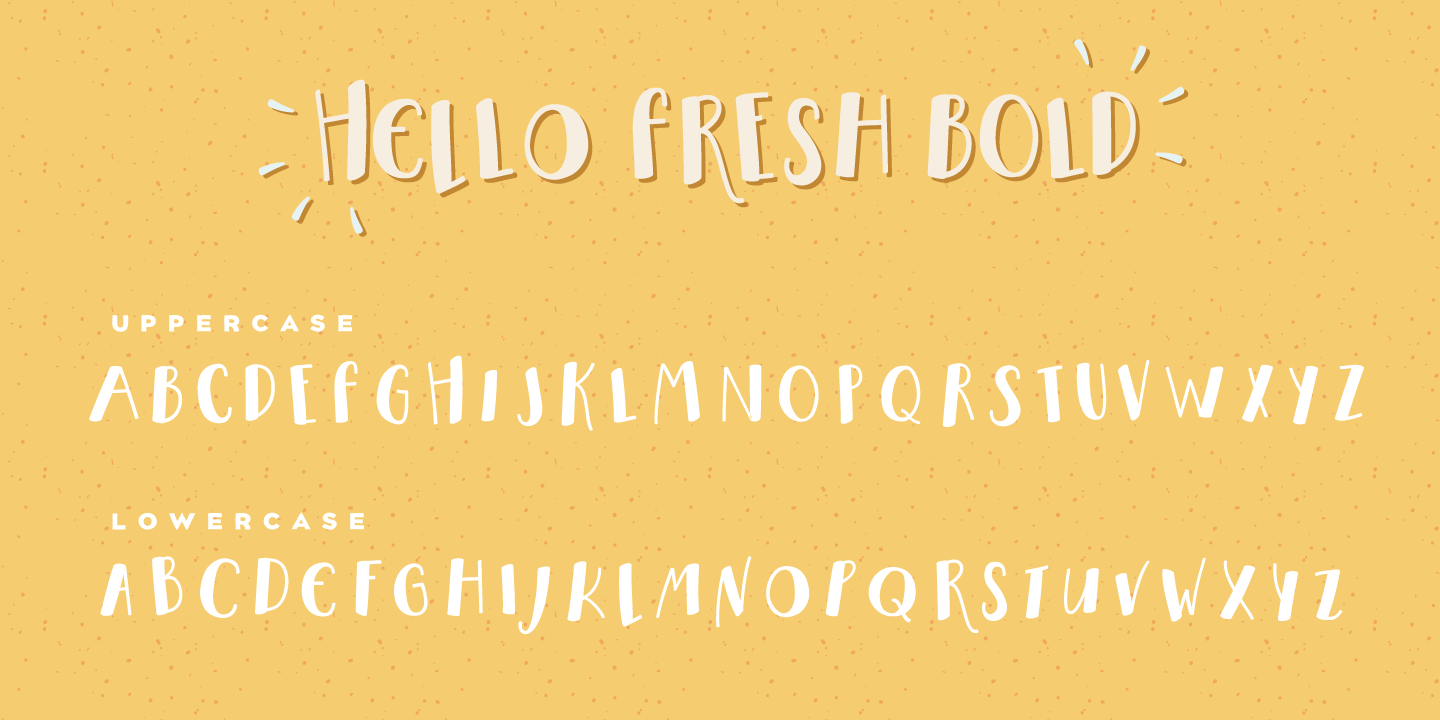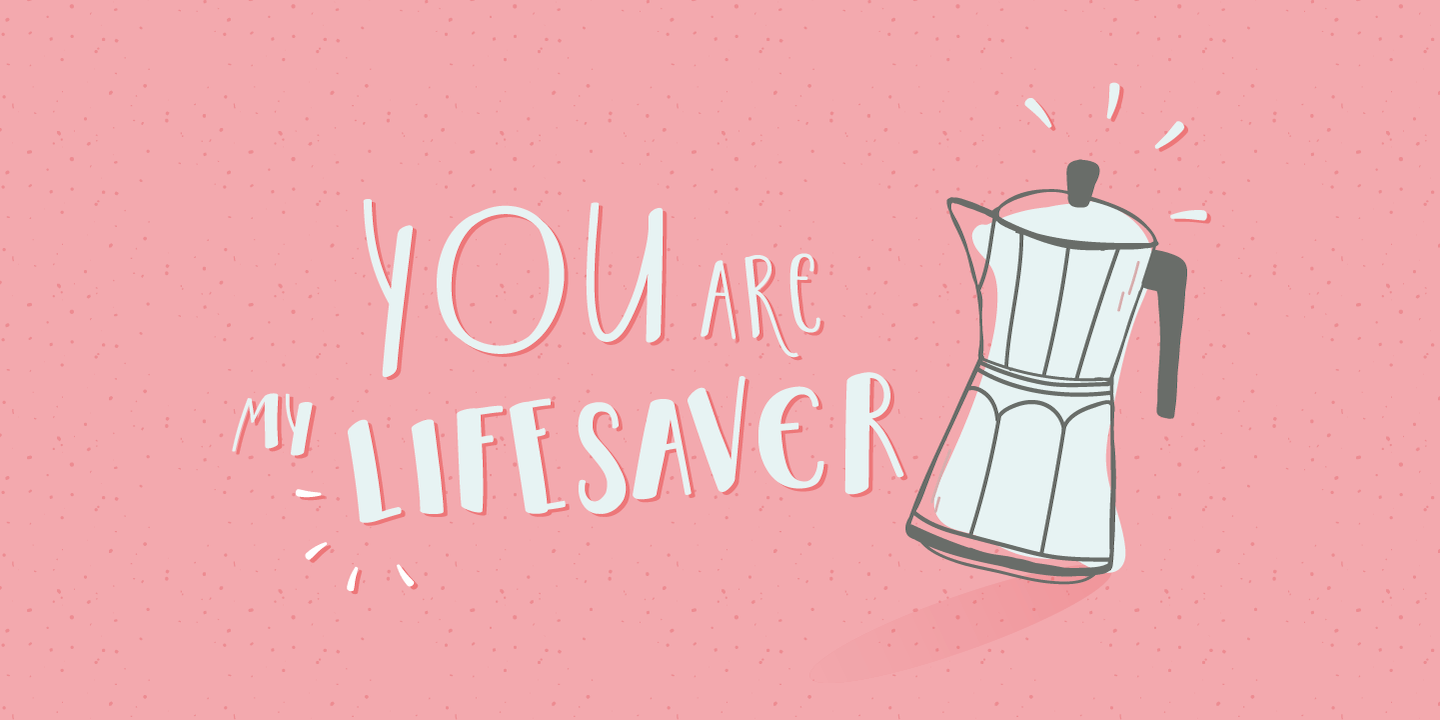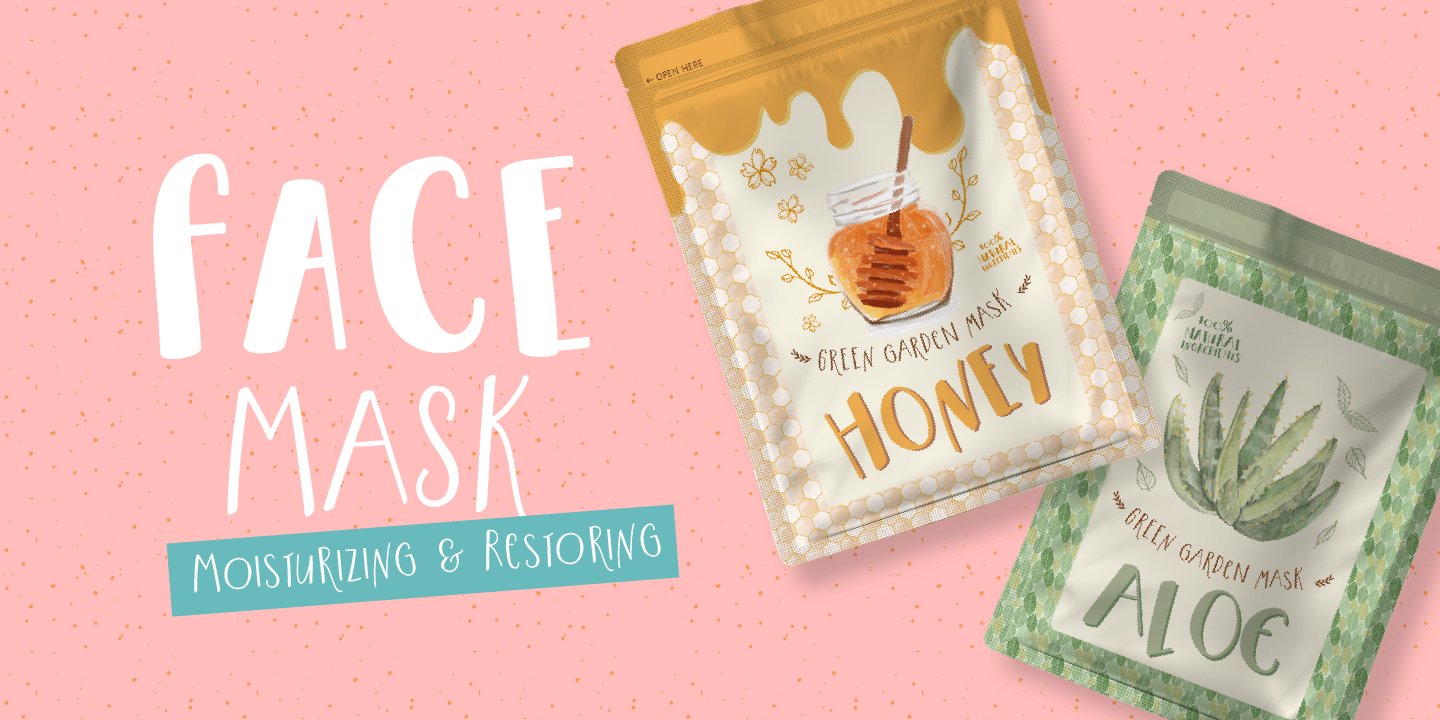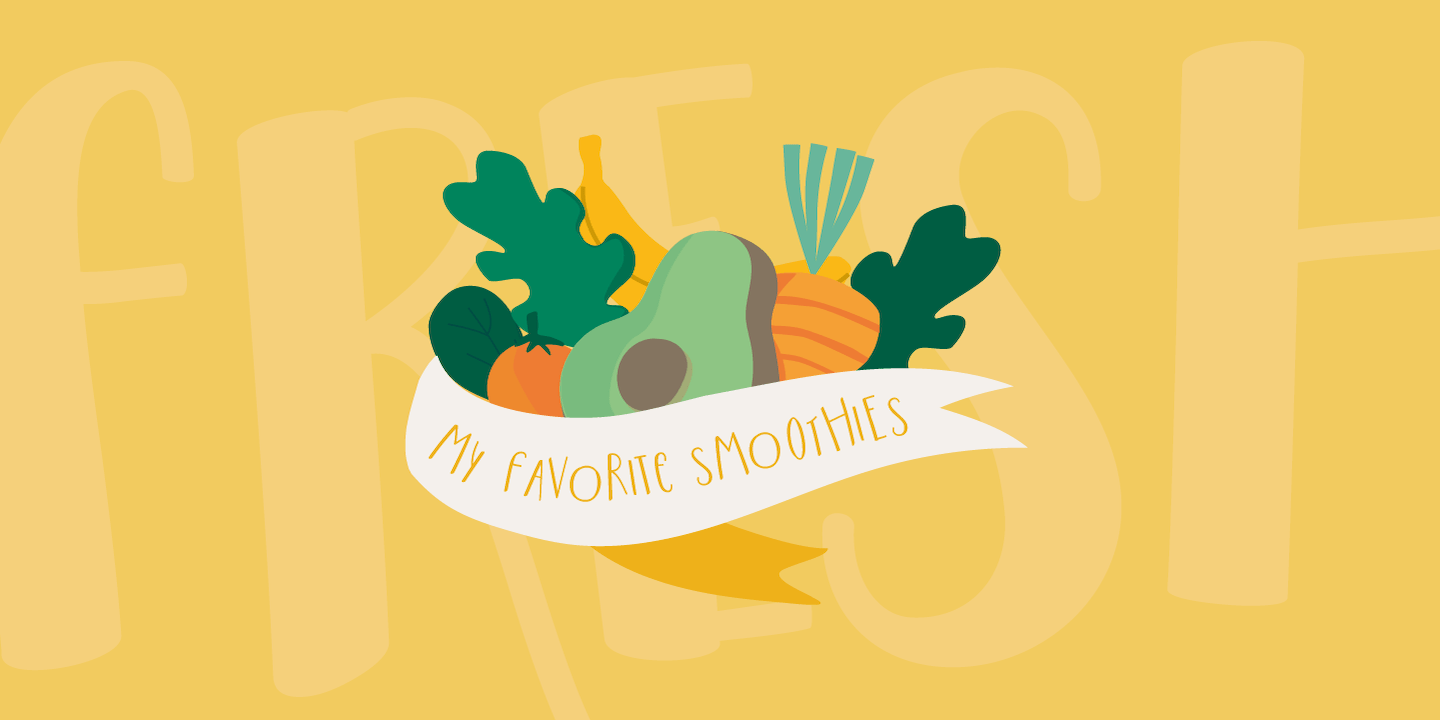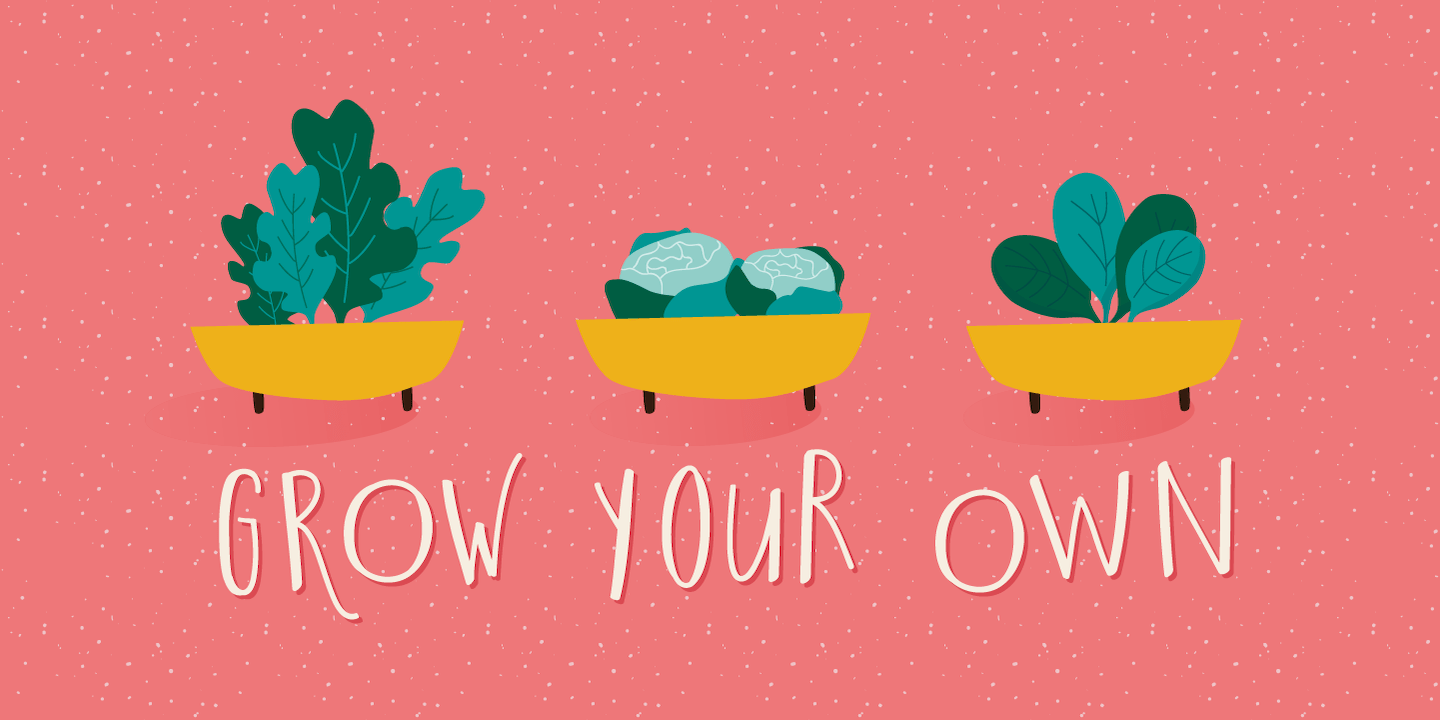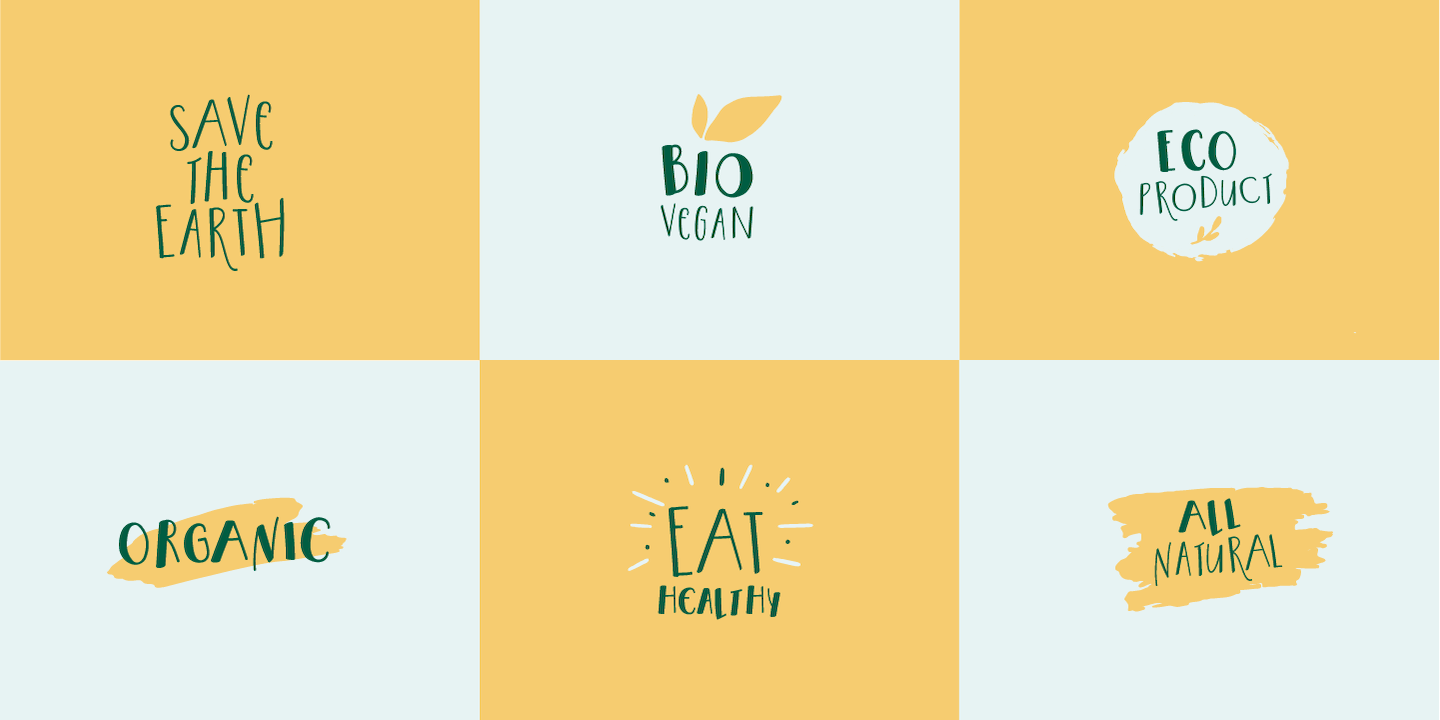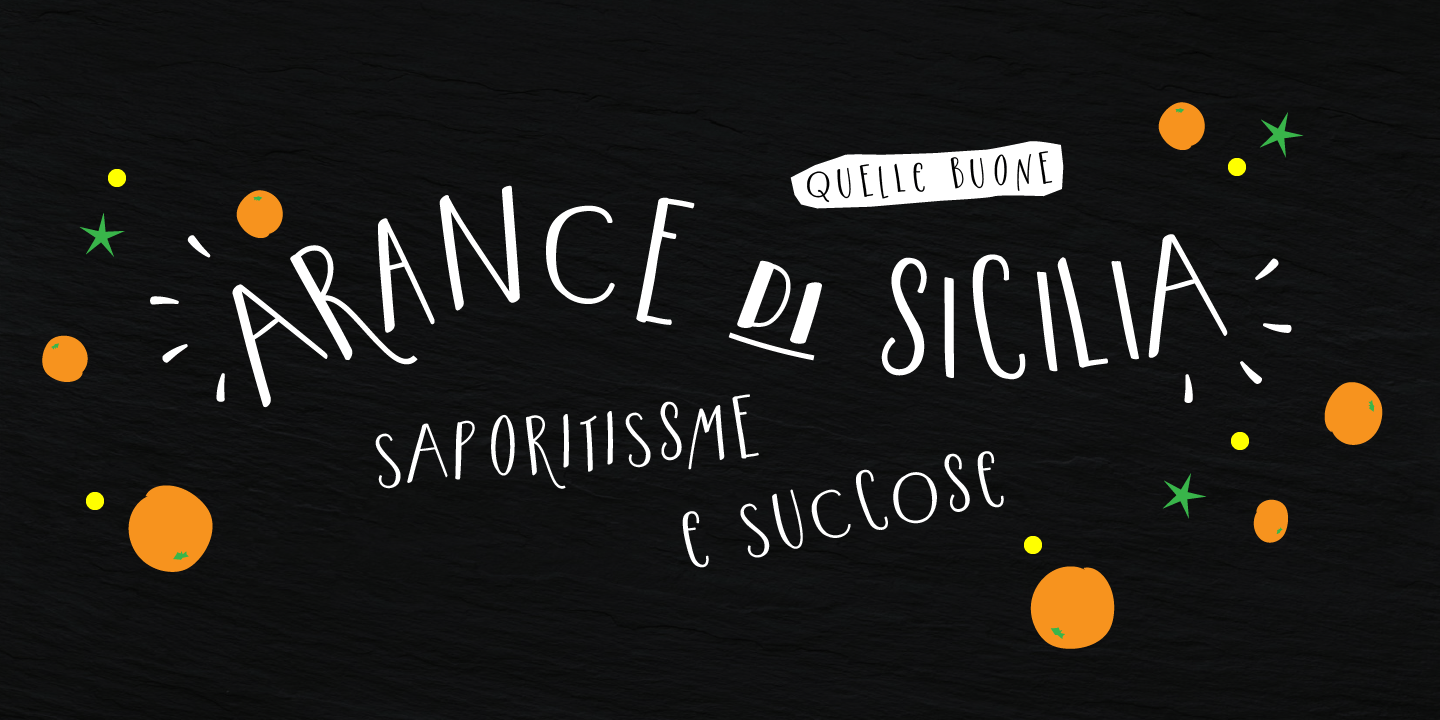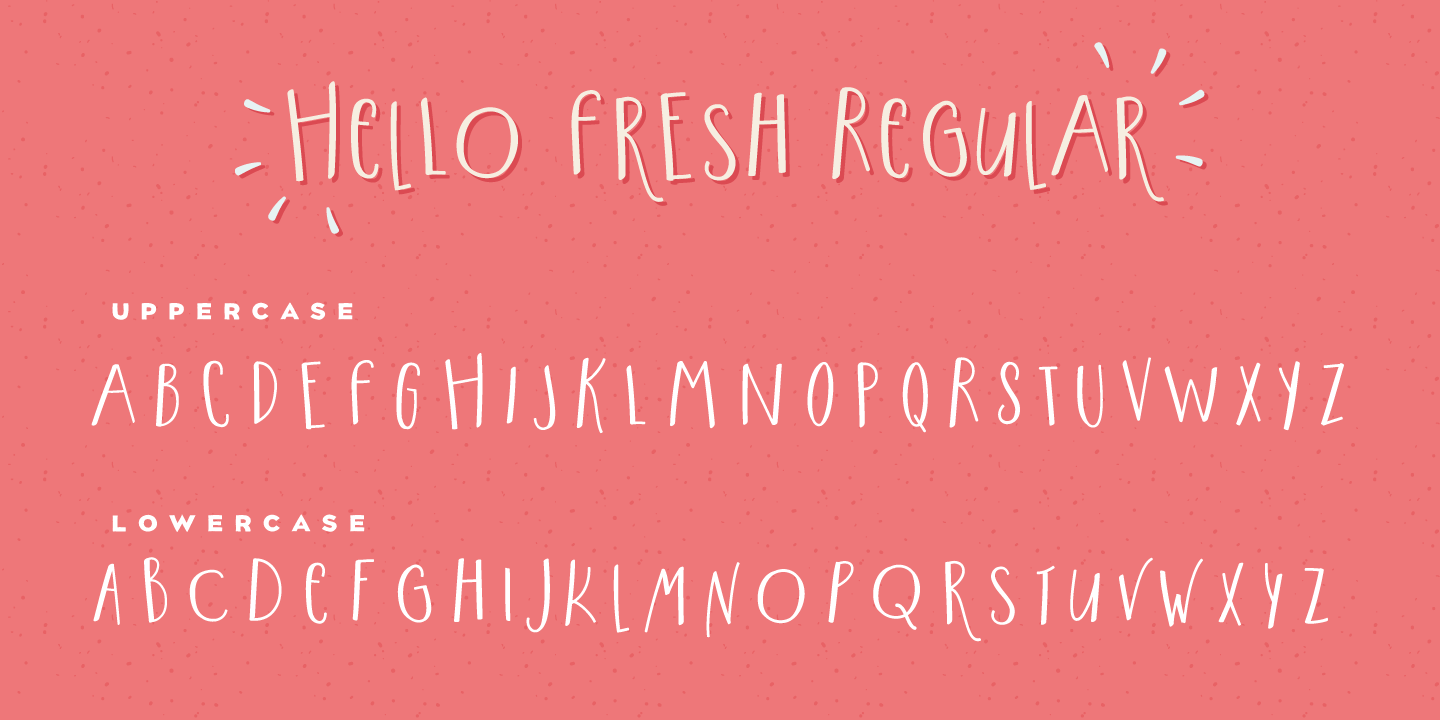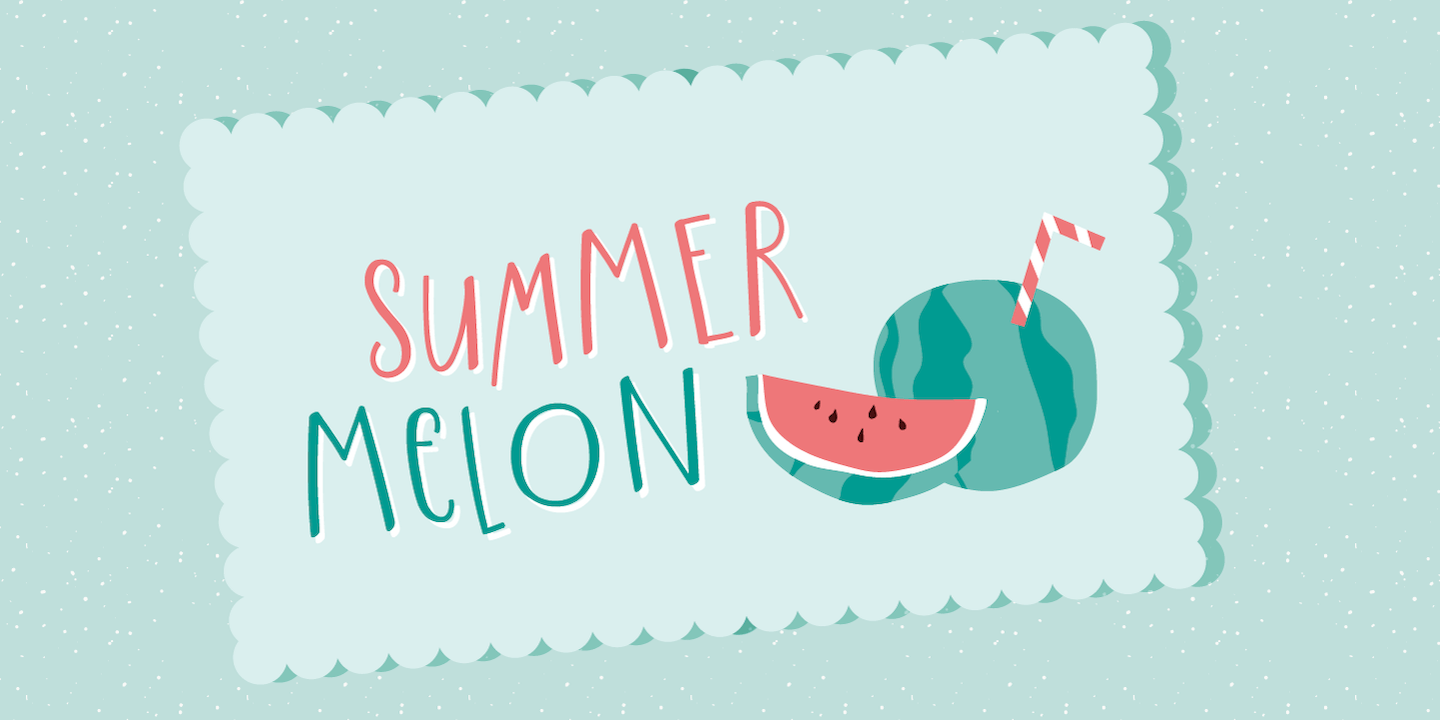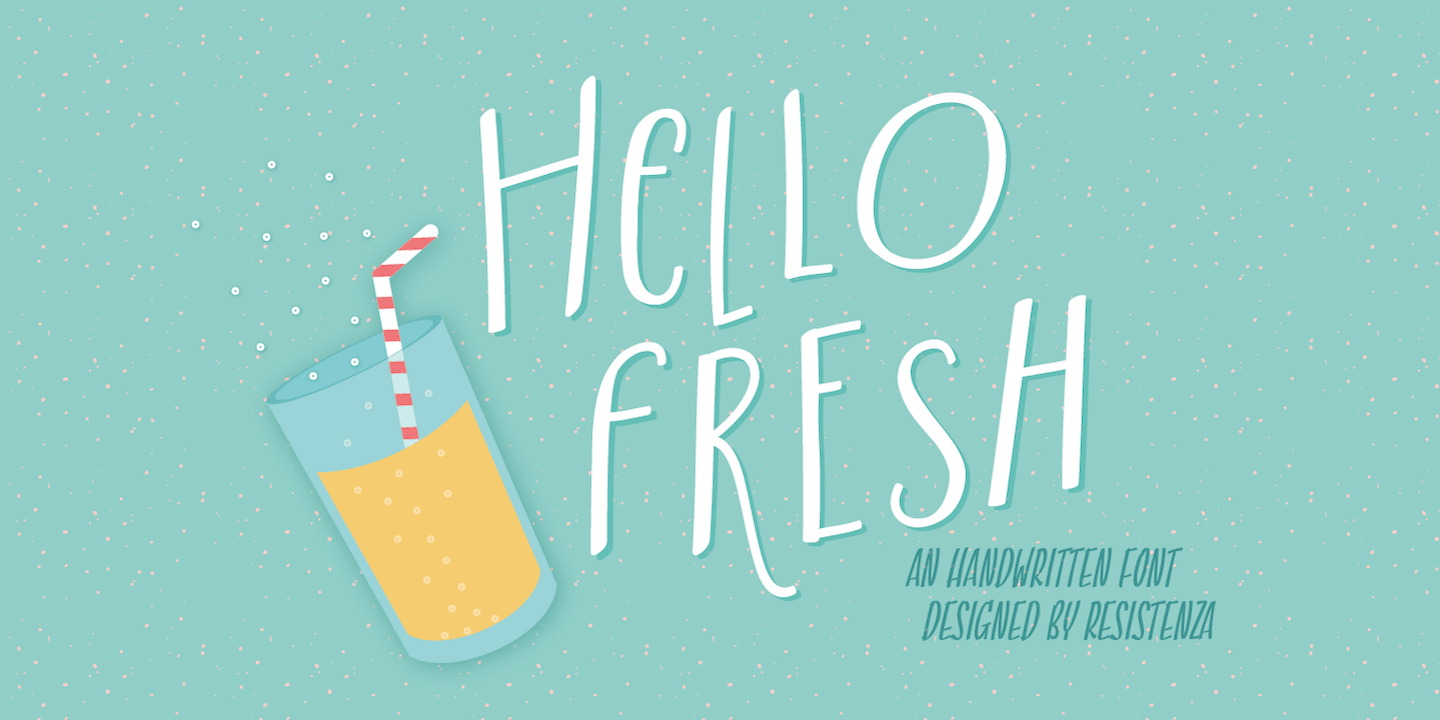
Hello Fresh
About Hello Fresh
Fresh is best! Say hello to this playful and bouncing font designed by Resistenza. These all-caps have been specially created to add a lively mood to your graphics. You\’ll be able to create catchy quotes combining these all-caps fonts or you can use them…